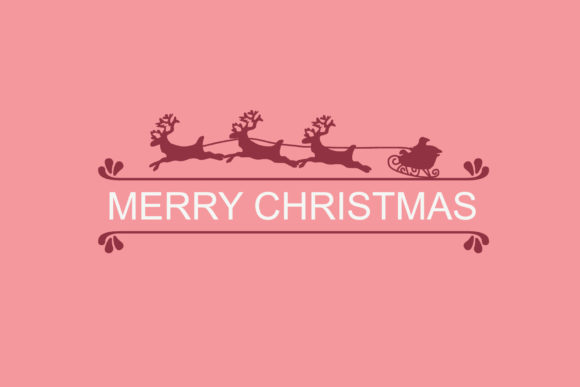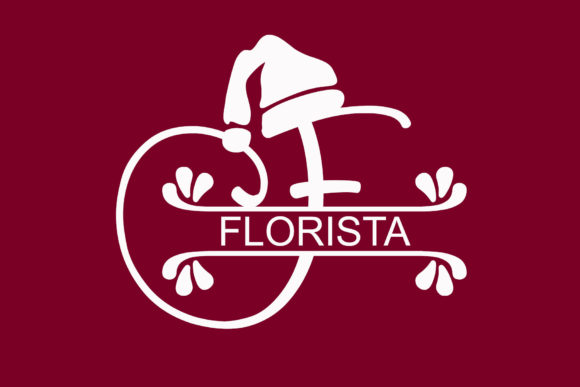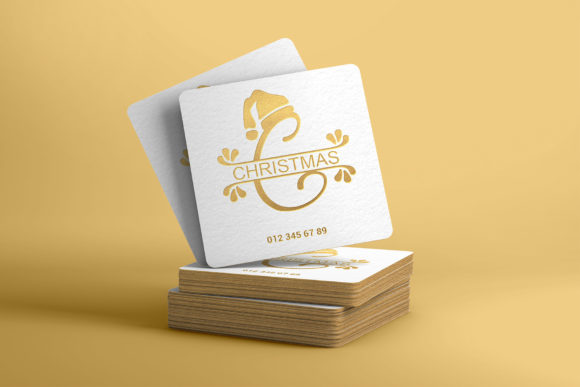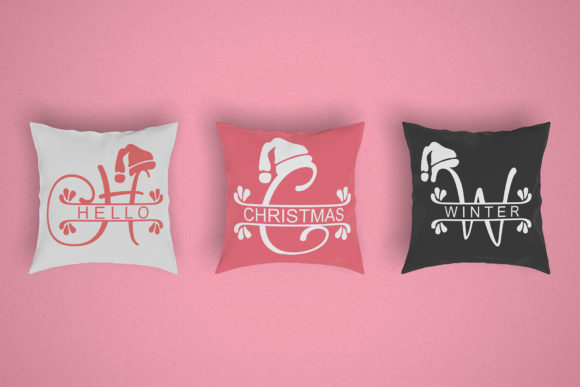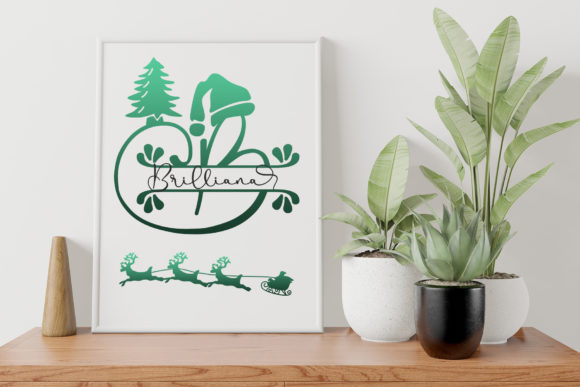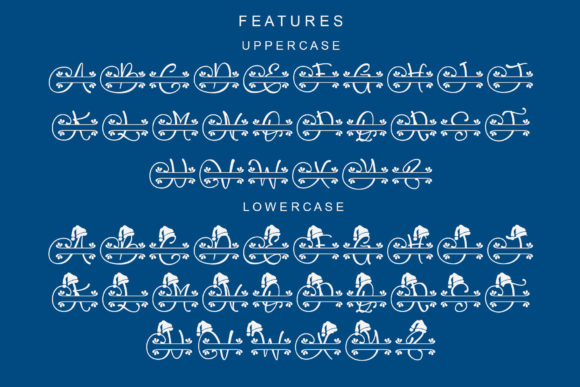
The Perfect Touch of Elegance: Unveiling the Brilliana Monogram Font
Have you ever been stuck on a design, searching for that perfect font to elevate your creation? You know, that moment when everything falls into place, and your design transforms from good to great? That’s exactly what happens when you discover the Brilliana Monogram Font. This beautiful and warm decorative font is a game-changer for designers, offering a unique touch of elegance that sets your work apart.
Whether you’re creating wedding invitations, greeting cards, or any other design project, the Brilliana Monogram Font is the perfect addition. With its PUA encoding, accessing all the glyphs and swashes is a breeze, allowing you to experiment with different styles and create spectacular designs. As a valuable asset for designers, the Brilliana Monogram Font offers versatility and sophistication, making it a must-have for any creative project.
Brilliana Monogram Font Key Features
- Font Family: Brilliana Monogram Font
- Unique Characteristics: Hand-drawn, elegant, and sophisticated design; perfect for invitations, wedding stationery, and other formal events
- Script Type: Monogram script, ideal for creating custom monograms and initials
Designer Review: Brilliana Monogram Font
✨ The Brilliana Monogram Font is a beautiful, elegant script font that exudes sophistication and refinement. I love the way it flows, with each letter connecting seamlessly to the next. The font’s monogram design makes it perfect for creating custom logos, invitations, and other special occasion graphics.
- ✨ High-quality design with a seamless connection between letters
- ✨ Versatile font suitable for various designs, from logos to invitations
- ✨ Elegant and sophisticated feel that’s perfect for high-end designs
⚠️ One of the limitations of the Brilliana Monogram Font is its limited character set. This can be a problem if you’re looking to create longer texts or paragraphs, as you’ll need to either use a different font or manually recreate the text in the Brilliana Monogram Font. Additionally, the font’s connection style can make it difficult to read in certain situations, such as at small font sizes.
Overall, the Brilliana Monogram Font is a stunning addition to any designer’s toolkit. While it may have some limitations, its unique design and high-quality feel make it well worth the investment. With some creative problem-solving, you can overcome its limitations and create truly breathtaking designs.
Brilliana Monogram Font is commonly used for:
- Monogrammed gifts and accessories
- Personalized stationery and letterheads
- Custom branding and logos
Q: Can I customize the Brilliana Monogram Font to fit my design needs?